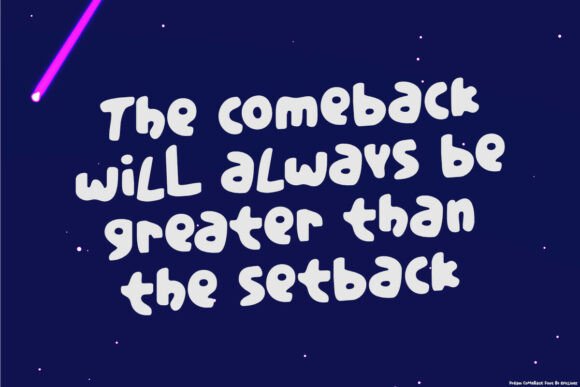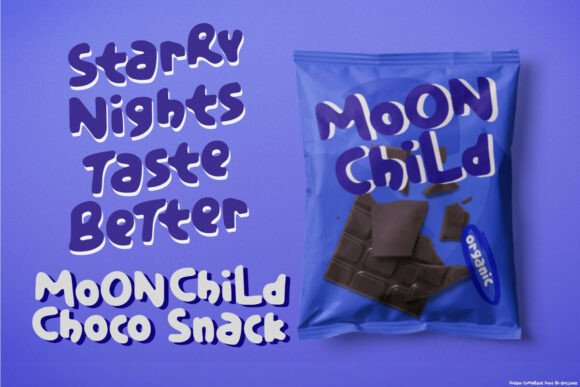
Introduction to Dream Comeback Font
Have you ever been working on a creative project, pouring your heart and soul into it, only to realize that it’s missing that extra spark? That’s when you start browsing through design resources, searching for the perfect font to elevate your work. And then, you stumble upon it – the Dream Comeback Font, a bold, fun, and playful display font that’s sure to bring a smile to your face.
As a designer, you understand the importance of finding the right font to convey the tone and personality of your project. And with the Dream Comeback Font, you’ll be able to infuse your designs with a sense of optimism, cuteness, and energy. Whether you’re working on a kids project, playful branding, or a poster, this font is sure to shine. Plus, with its high-quality design and transparent background, you can easily download and use it in your next creative project.
Key Features of Dream Comeback Font
- Unique, hand-drawn design for creative projects and personal use
- Includes a full character set, including uppercase and lowercase letters, numbers, and punctuation marks
- Perfect for designers, artists, and crafters looking for a unique and creative design element for their projects
Honest Review: Dream Comeback Font
As a designer, I’m always on the lookout for high-quality design resources to elevate my creative projects. I recently had the chance to try out the Dream Comeback Font, and I’m excited to share my thoughts.
What works well: ✨ The Dream Comeback Font has a unique and eye-catching design that’s perfect for adding a touch of personality to your projects. I love the variety of styles and weights available, making it easy to find the perfect fit for your design needs. The font is also a free download, which is always a bonus!
What doesn’t work well: ⚠️ One thing to keep in mind is that the font doesn’t come with a transparent background option, which can be a limitation for designers who need to use it with complex backgrounds. Additionally, the font may not be suitable for very small text sizes, as the details can get lost.
Overall, I’m impressed with the Dream Comeback Font. It’s a great addition to any designer’s toolkit, and the free download makes it an attractive option for those on a budget. Just be aware of the limitations, and you’ll be all set for a creative project that turns out amazing!
- Unique and eye-catching design
The Dream Comeback Font is a high-quality, free download design resource ideal for creative projects. It features a transparent background, making it easy to integrate into various designs.
Tips for Getting the Most Out of Dream Comeback Font
For optimal results, use the Dream Comeback Font in conjunction with other high-quality design resources. Experiment with different font sizes, colors, and layouts to create a visually appealing design.
The Dream Comeback Font is suitable for a variety of creative projects, including:
- Infographics and data visualizations.
- Business presentations and reports.
- Marketing materials and social media graphics.
Alternatives to Dream Comeback Font
Aesthetic Sans Font
Aesthetic Sans Font is a clean and elegant sans-serif font ideal for creative projects that require a touch of sophistication. It’s available for free download and features a transparent background, making it perfect for overlaying on images. Use it for high-quality designs that need a neutral yet stylish look.
Compared to Dream Comeback Font, Aesthetic Sans Font is more versatile and suitable for a wider range of design projects. Its clean lines and minimalist design make it an excellent choice for modern designs, while its free download option makes it an attractive alternative for designers on a budget.
Playful Script Font
Playful Script Font is a charming and whimsical script font perfect for adding a touch of personality to creative projects. It’s available for free download and features a transparent background, making it easy to overlay on images. Use it for high-quality designs that require a playful and creative touch.
Compared to Dream Comeback Font, Playful Script Font is more playful and suitable for designs that need a creative and artistic touch. Its free download option and transparent background make it an excellent alternative for designers who want to add a personal touch to their projects.
Is the Dream Comeback Font a high-quality font, and how can I ensure its optimal display?